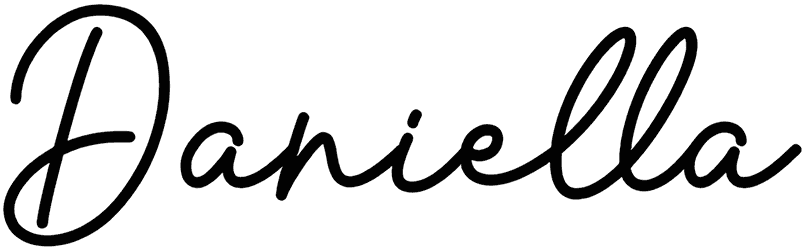
Daniella Font
If you wish for a unique styling to include a personal element to your lettering, then you should give Daniella a try. This signature font with flowing and thin lines creates an adorable effect that makes it perfect for wedding cards, Valentine gifts, and birthday banners.